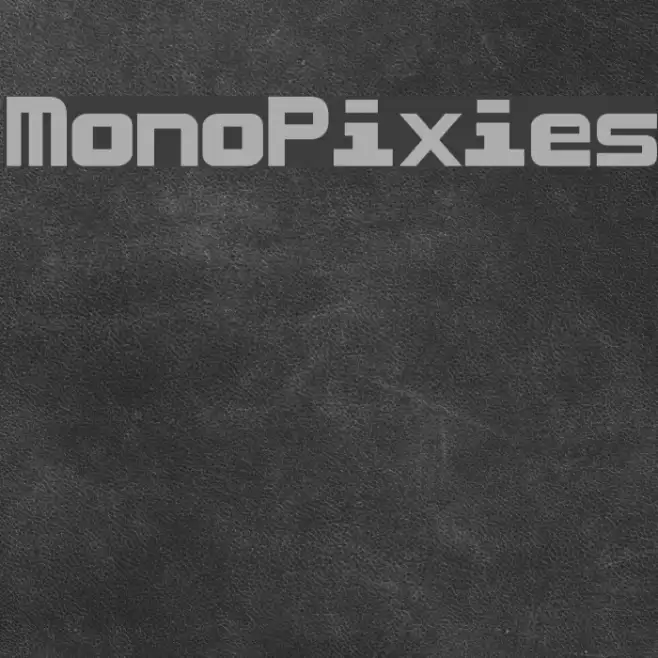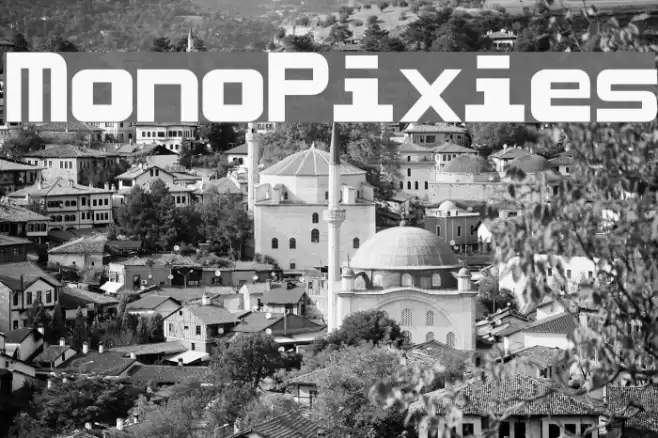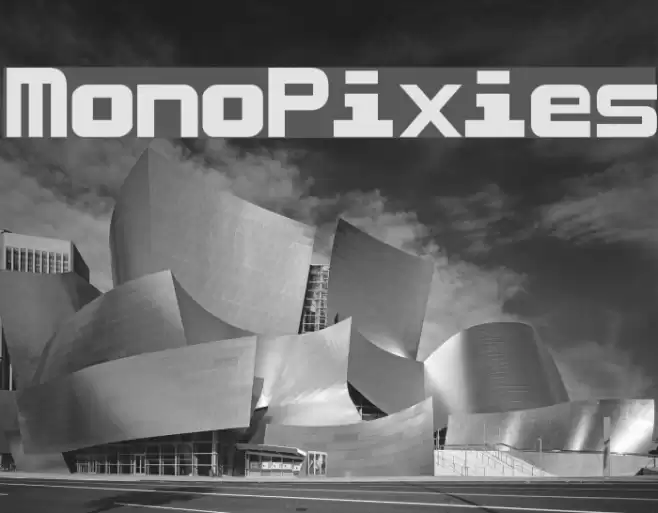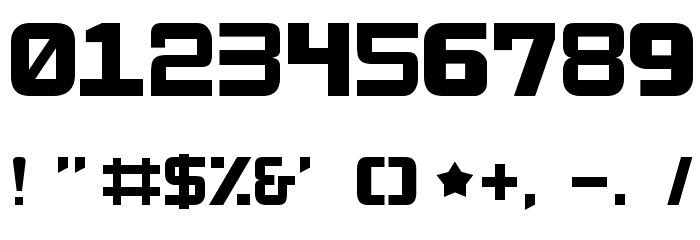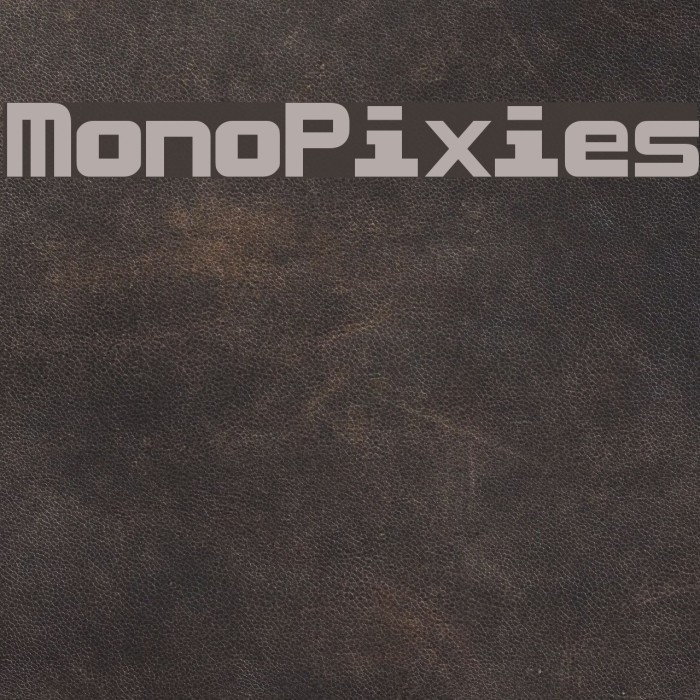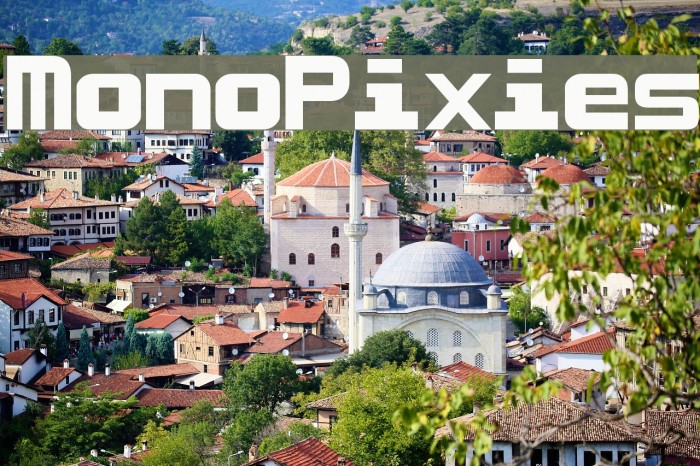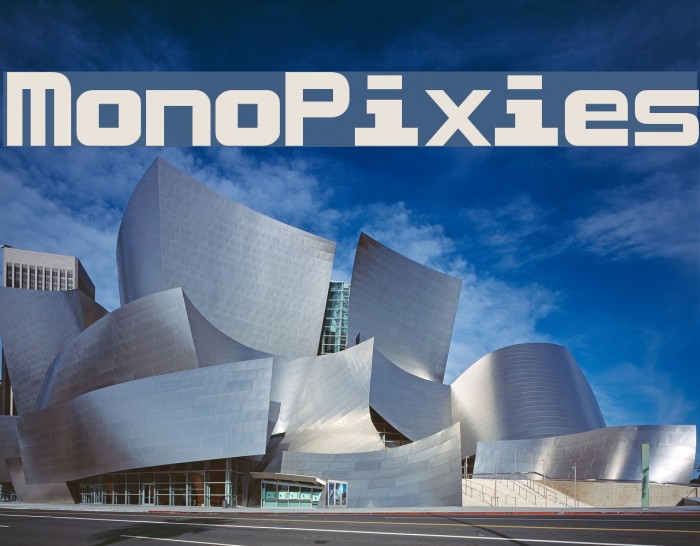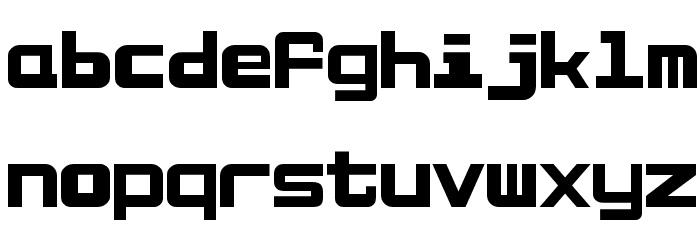
MonoPixies Font
MonoPixies Description
This font features a bold, geometric design with a monospaced structure, giving it a modern and technical appearance. The characters are uniformly spaced, contributing to a clean and organized look. The uppercase and lowercase letters maintain a consistent height, enhancing readability and uniformity. The numerals and special characters are designed with the same geometric precision, making them ideal for coding or technical documentation. The font's overall style is reminiscent of digital or retro gaming aesthetics, with a strong emphasis on angular shapes and straight lines. This design choice gives it a unique, futuristic feel while maintaining clarity and legibility.
A bold, geometric monospaced font with a modern, technical aesthetic.
- Proposed Projects: Ideal for coding environments, technical documentation, digital interfaces, retro gaming designs, and futuristic branding projects.